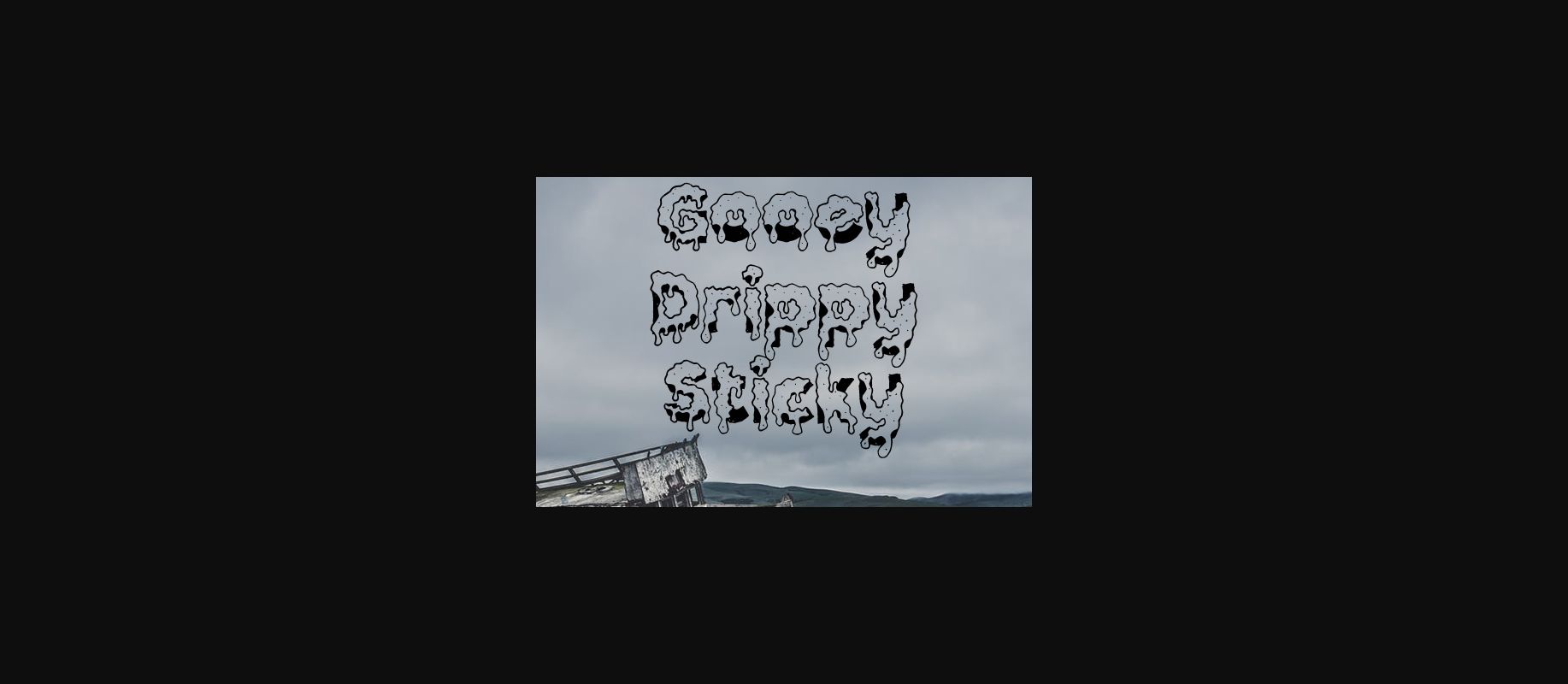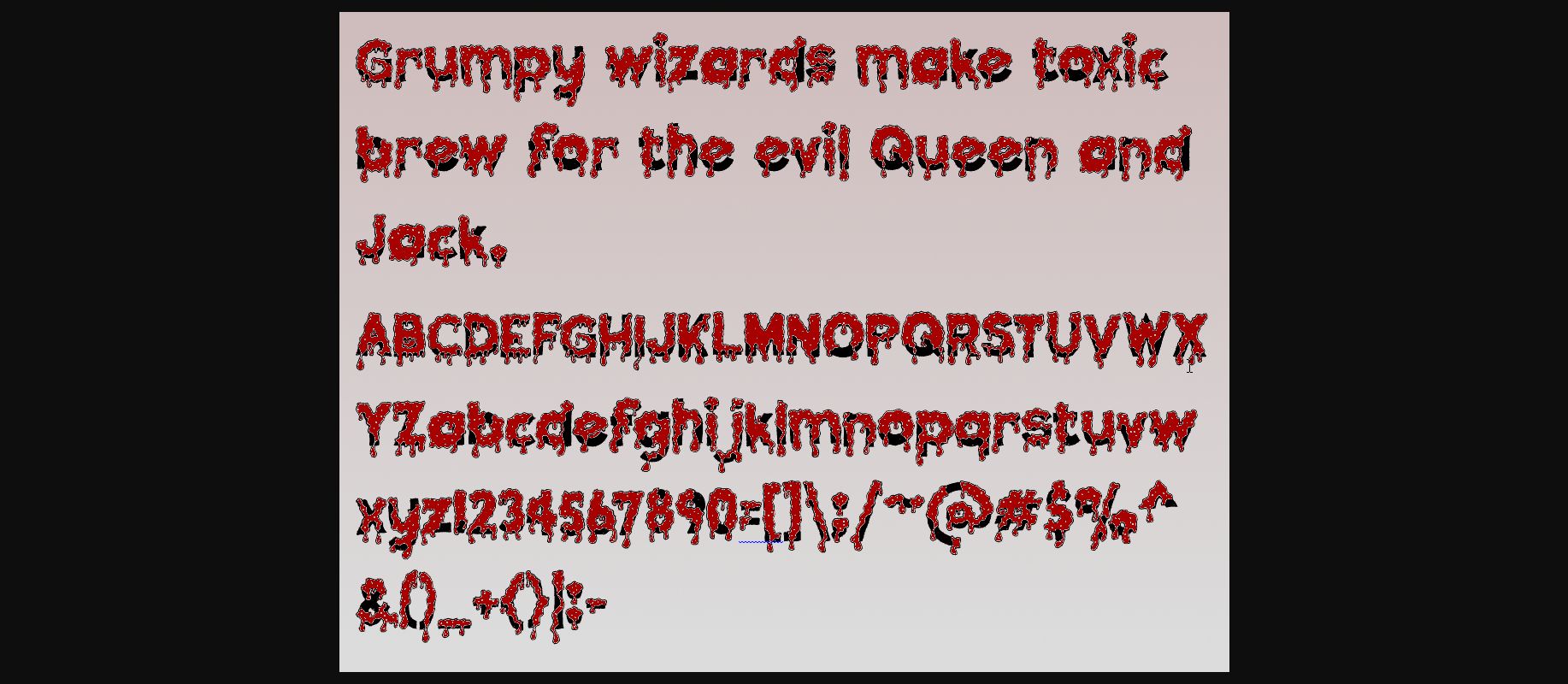
HomeDecorative FontsGooey Drippy Sticky Font Decorative Fonts Gooey Drippy Sticky Font FacebookXPinterestWhatsApp 1 of 2 About Gooey Drippy Sticky Font Yuck! Who made this mess and didn’t clean it up?! A sticky version of ‘Stout Deco’. DOWNLOAD NOW People also explored Bogenvilla Font Camping Font Cozy Sweater Font New Forum Bold Font Complementary Font Deeney Font Enrigo Font Antigua Presidente Font Tree Loves Font 441 0 TagsGooey Drippy Sticky Font Previous articleSlanted Box Stencil FontNext articleBD Radiogram Font LEAVE A REPLY Cancel reply Comment: Please enter your comment! Name:* Please enter your name here Email:* You have entered an incorrect email address! Please enter your email address here Website: Save my name, email, and website in this browser for the next time I comment. Personal Use Free Adeline Personal Use Free Read more about this font Ginóra Personal Use Free Read more about this font Creativo Personal Use Free Read more about this font Masker Area Personal Use Free Read more about this font BLOG How to Cut Any Font on Cricut: Convert a Font to SVG (Free) Turn any font into a clean SVG so it cuts crisp on Cricut - a quick 3-step workflow using a free font-to-SVG tool. Using Fonts in Digital Marketing: Tips to Strengthen Your Brand Identity Best Fonts for T-Shirt Design – Top 2025 Picks Top 10 Handwritten Fonts That Elevate Your Designs